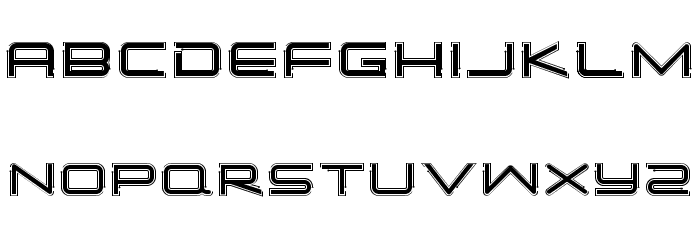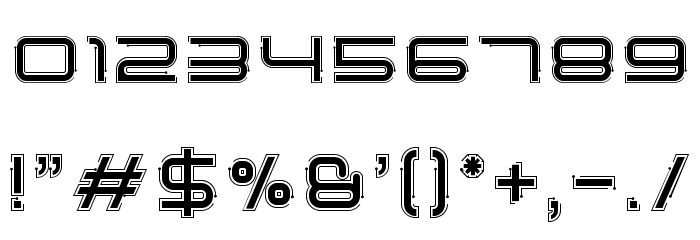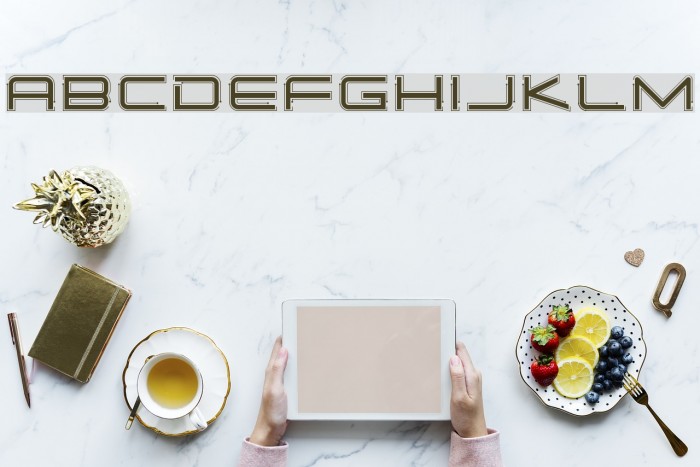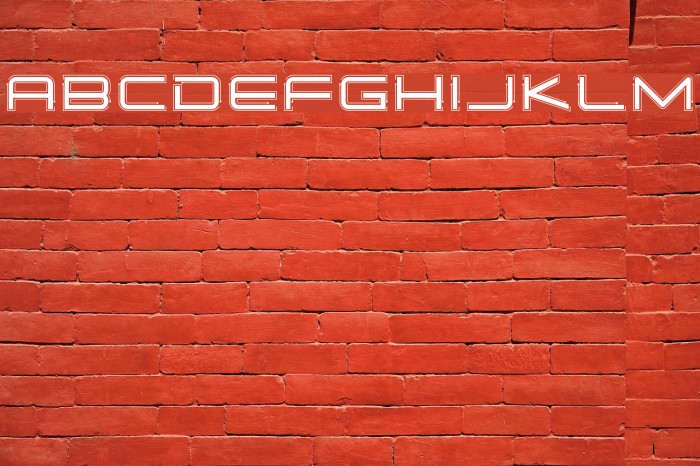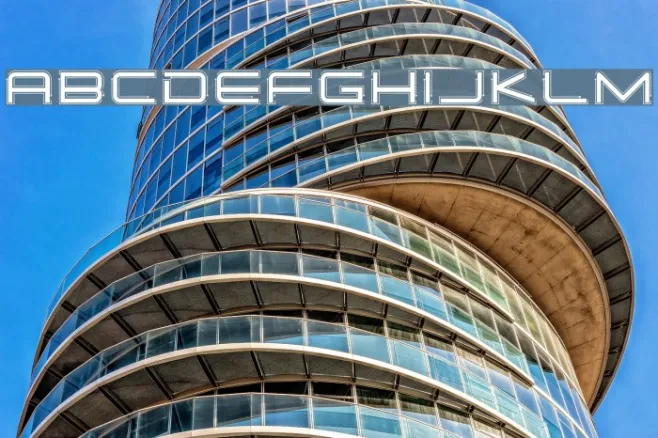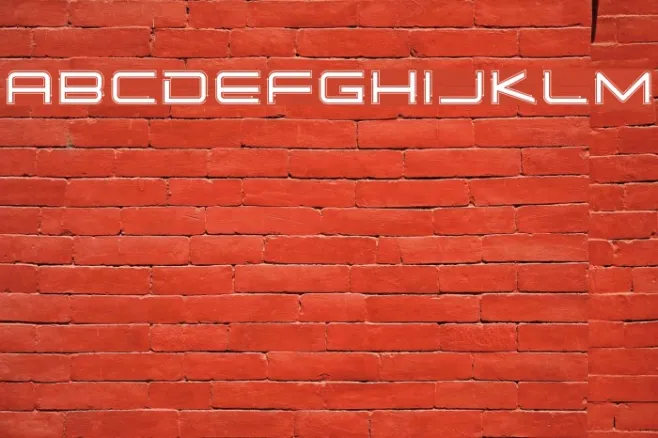
SimpleTechBold02 Font
This font features a futuristic and technical design, characterized by its geometric and angular letterforms. The characters are outlined with a bold, double-line effect that gives a sense of depth and dimension. The uppercase and lowercase letters maintain a consistent style, with sharp edges and a mechanical feel. The numerals and special characters follow the same aesthetic, making the font suitable for technology-themed projects. Its unique style is eye-catching and modern, perfect for creating a strong visual impact.
A futuristic, geometric font with bold, outlined characters.
- Proposed Projects: Ideal for technology branding, sci-fi posters, video game titles, and digital interfaces.